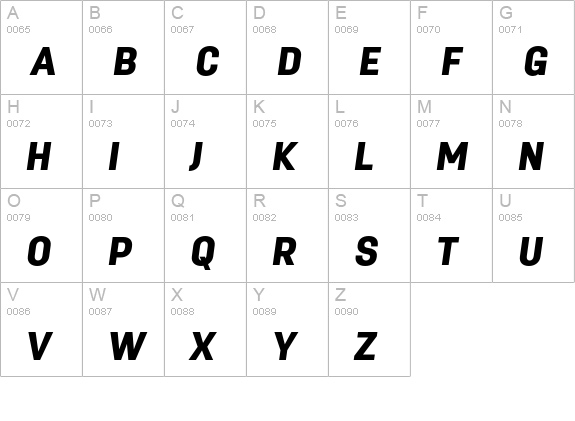
Antartida Black Italic is a maximum-weight, dramatic, italic variant in the Antartida typeface family \xE2\x80\x94 well suited to maximum-impact headlines, posters, and packaging.
Antartida Black Italic is a sleek and modern font that exudes sophistication and elegance. With its bold, slanted design, this typeface is perfect for creating eye-catching headlines, logos, and branding materials. The italicized style adds a touch of flair and dynamism to any project, making it stand out from the crowd. And the best part? Antartida Black Italic is available for free download at FontsMarket.com. Whether you're a designer looking to elevate your work or someone looking for a stylish font for personal projects, this font is a fantastic choice. Don't miss out on the opportunity to enhance your designs with the striking beauty of Antartida Black Italic – download it today and let your creativity shine!